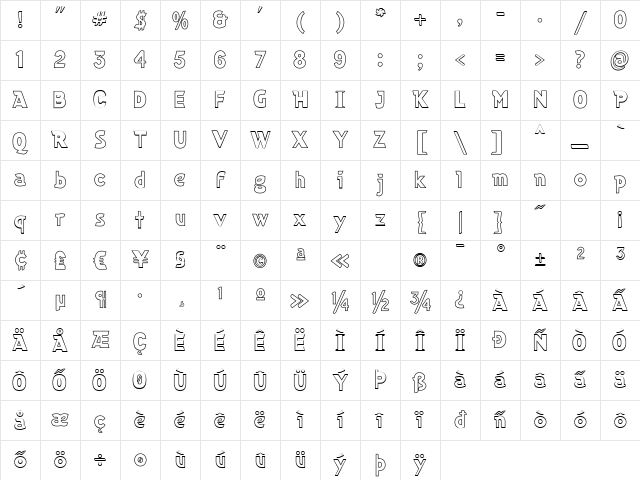
Cuban Regular Free Font
Cuban Regular
Design Context for Cuban
Cuban is a composed and adaptable typeface that performs quietly and consistently across a wide range of design contexts.